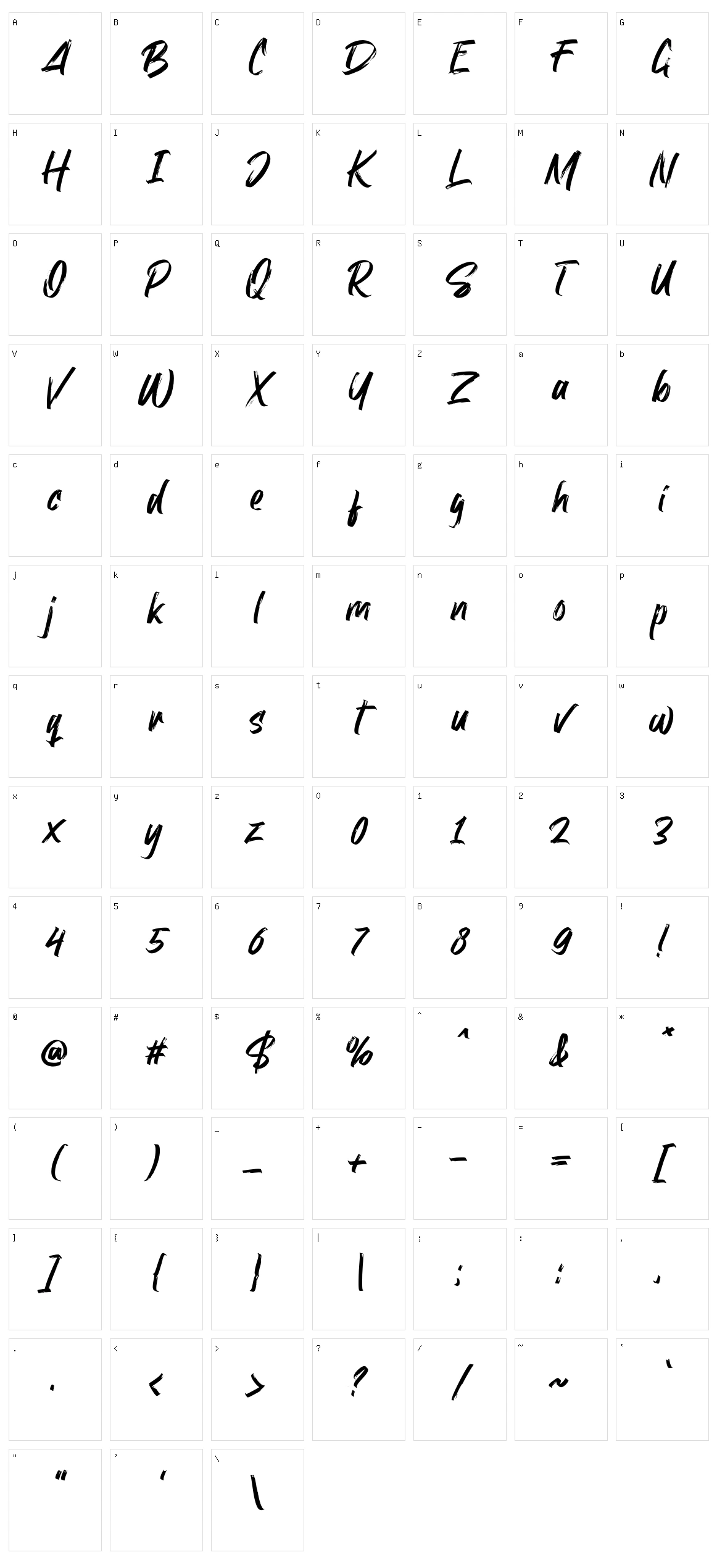
The free font Black Dirty is carefully designed by Kong Font, showcasing a thoughtful balance of creativity and usability and falls under the Script font style. When you download the ZIP file, it contains only 264.08 KB of font files, making it lightweight and quick to download. Please review the license details below to understand permitted usage and distribution rights. If license information is not available, we recommend using this font for personal projects only or contacting the author directly for commercial usage permissions.